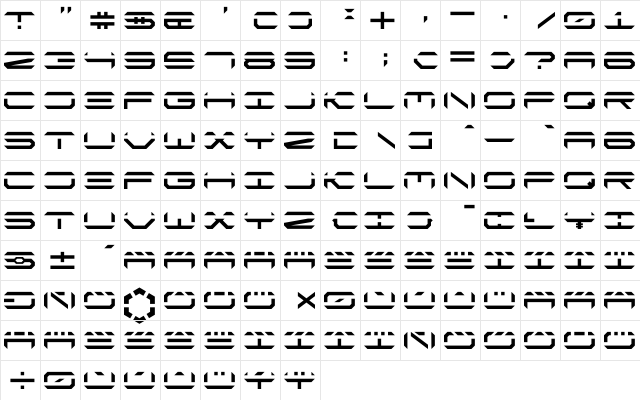
Torwelten Mono
Design Context for Torwelten Typeface
Torwelten brings the precise, column-aligned rhythm of monospaced typography to designs that value technical clarity and systematic order.
Well-suited to data-driven dashboards, coding tutorials, and any design that wants to reference the world of programming.
Pro Tip: Use Torwelten with slightly increased line-height for extended reading — fixed-width spacing can feel dense in longer passages without extra breathing room.